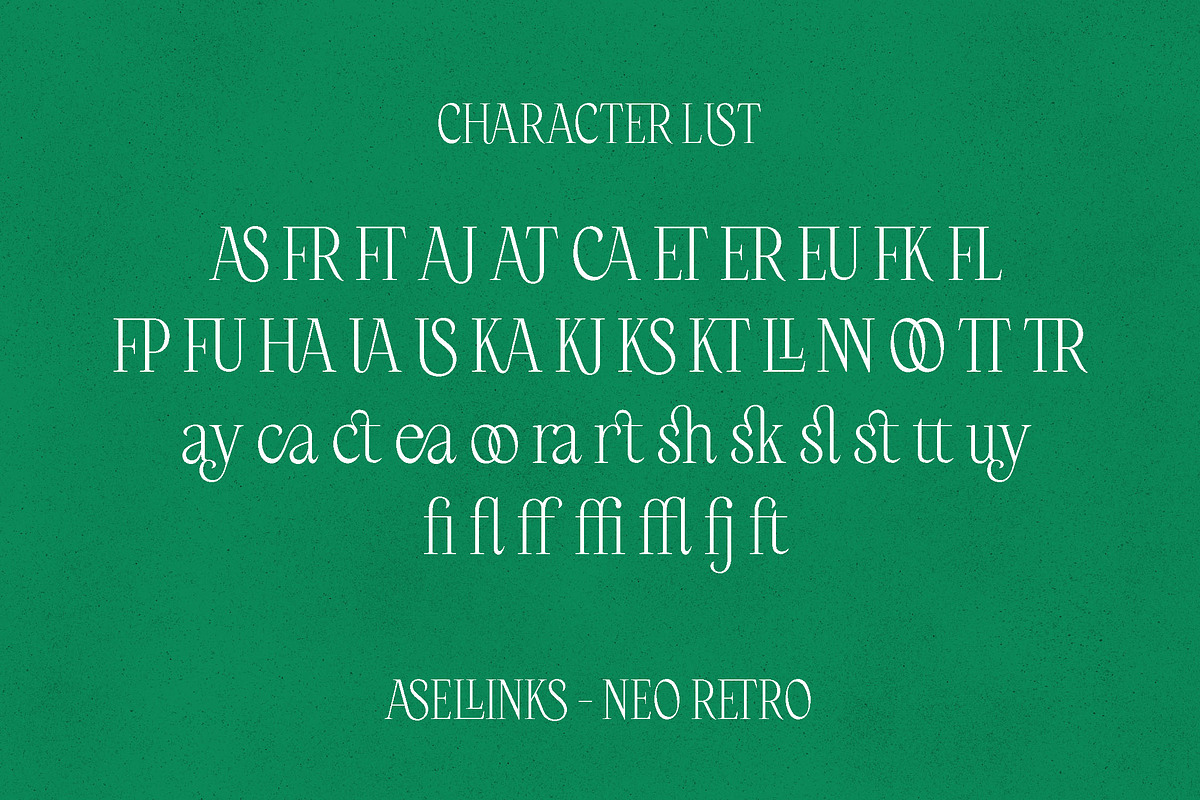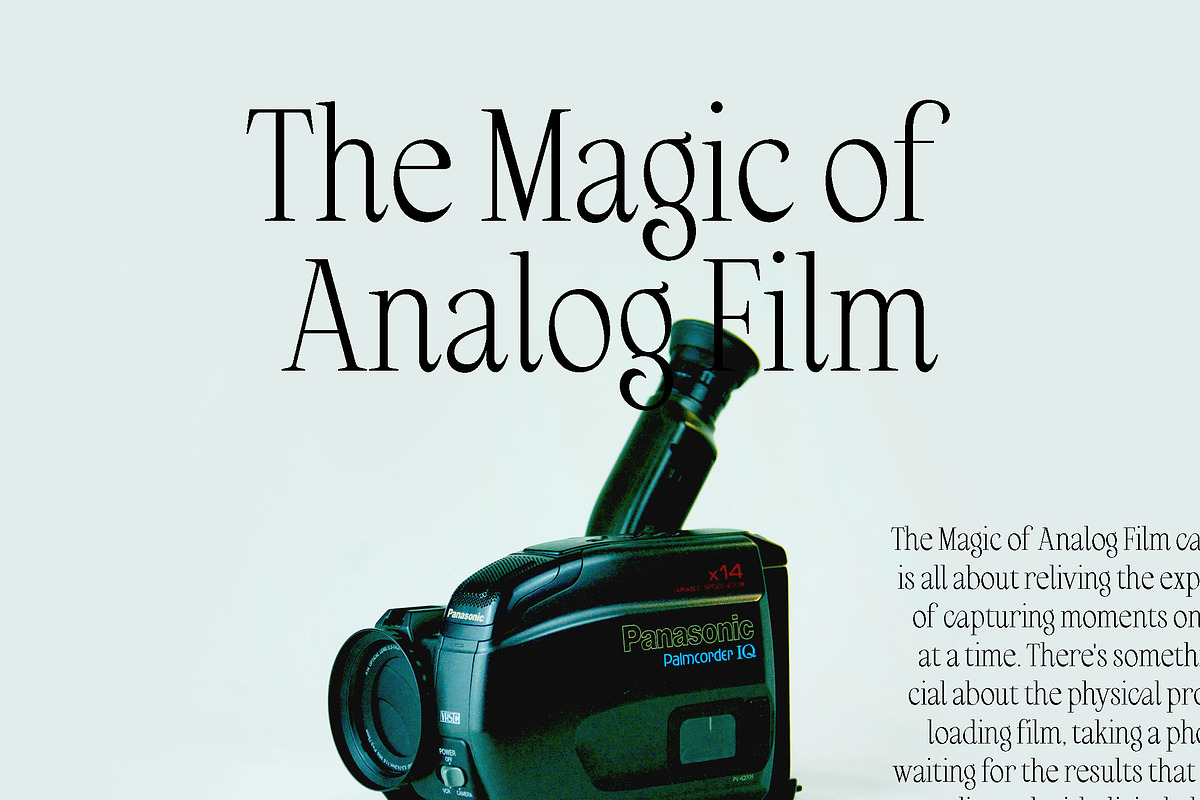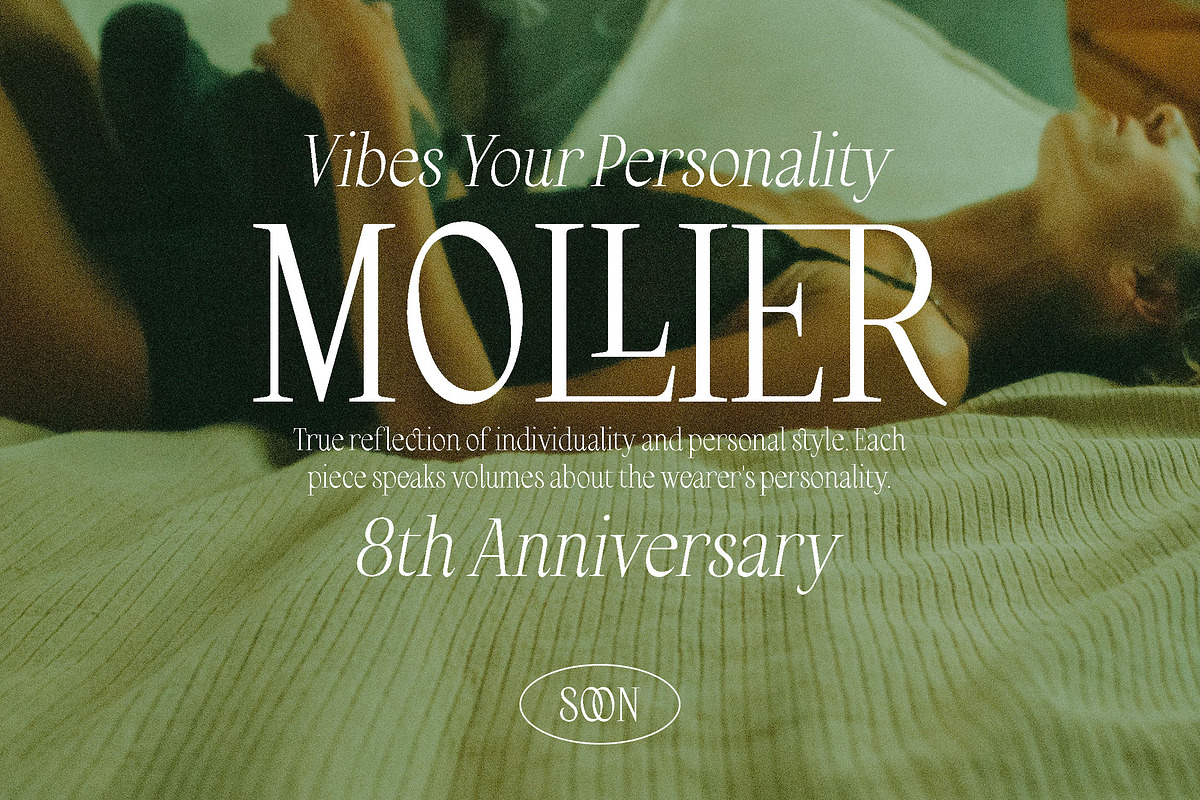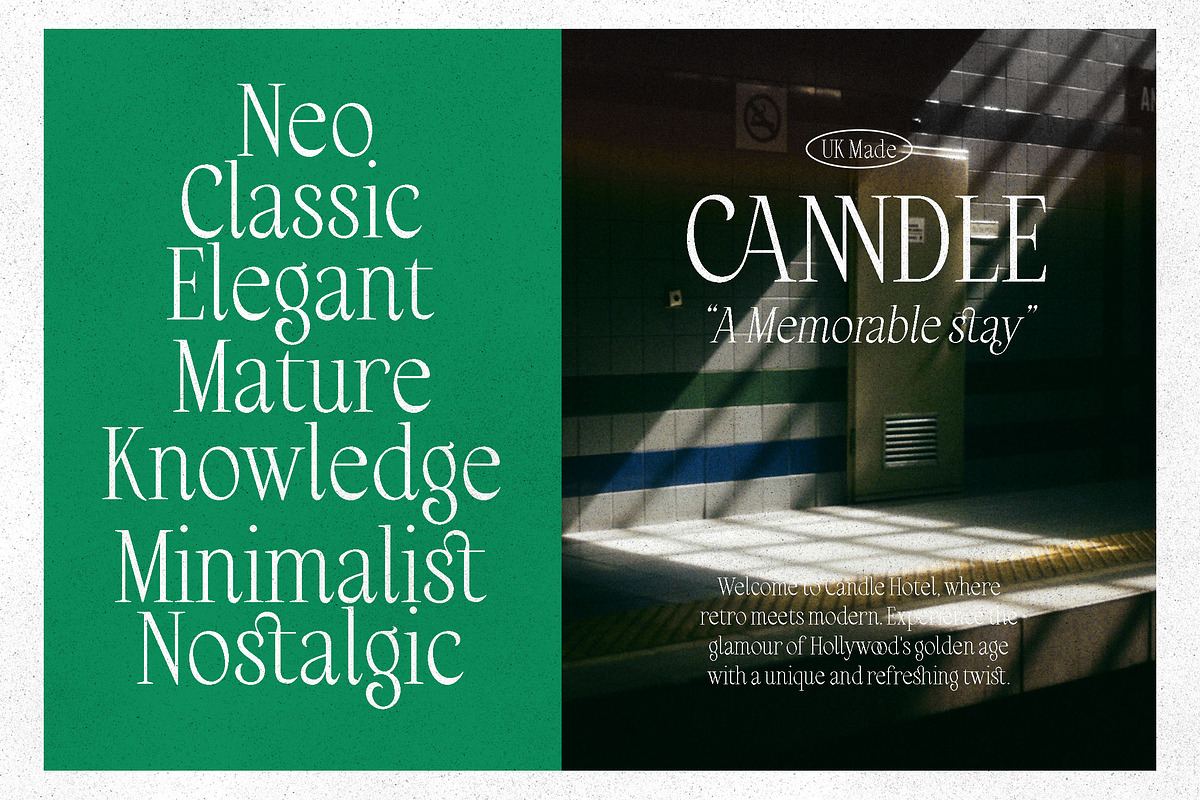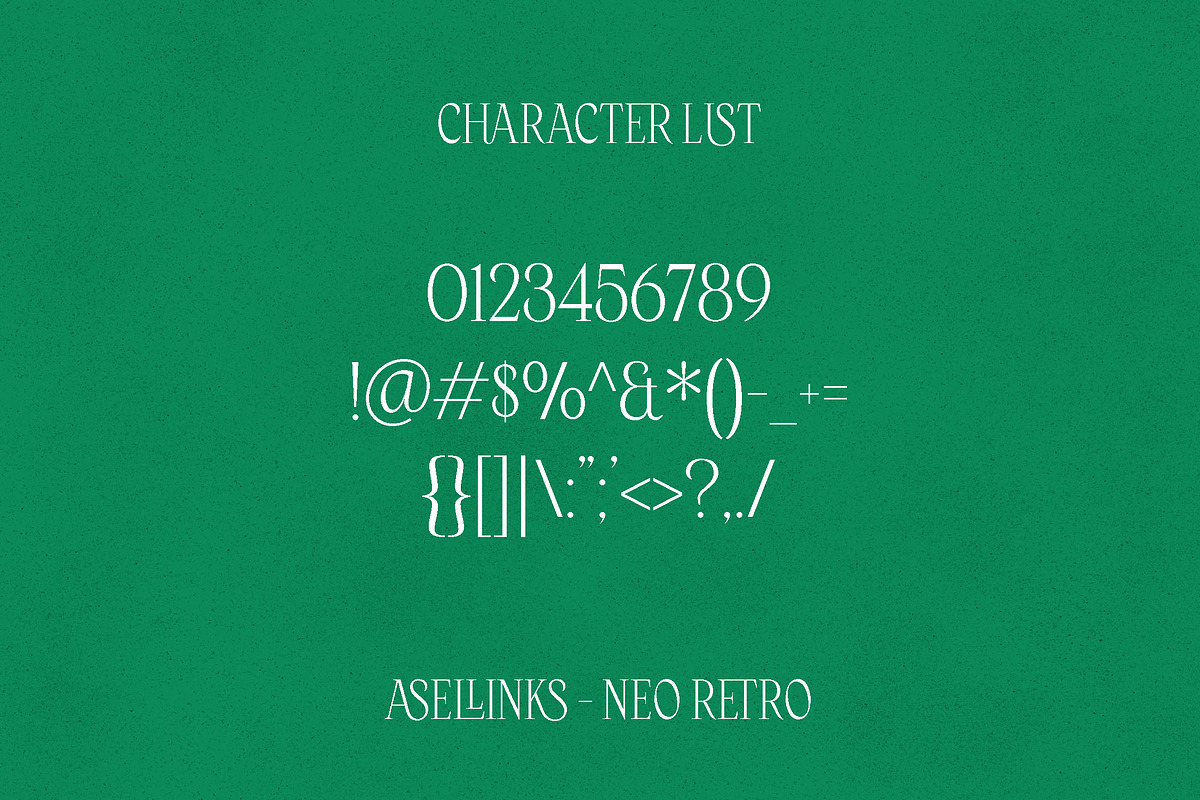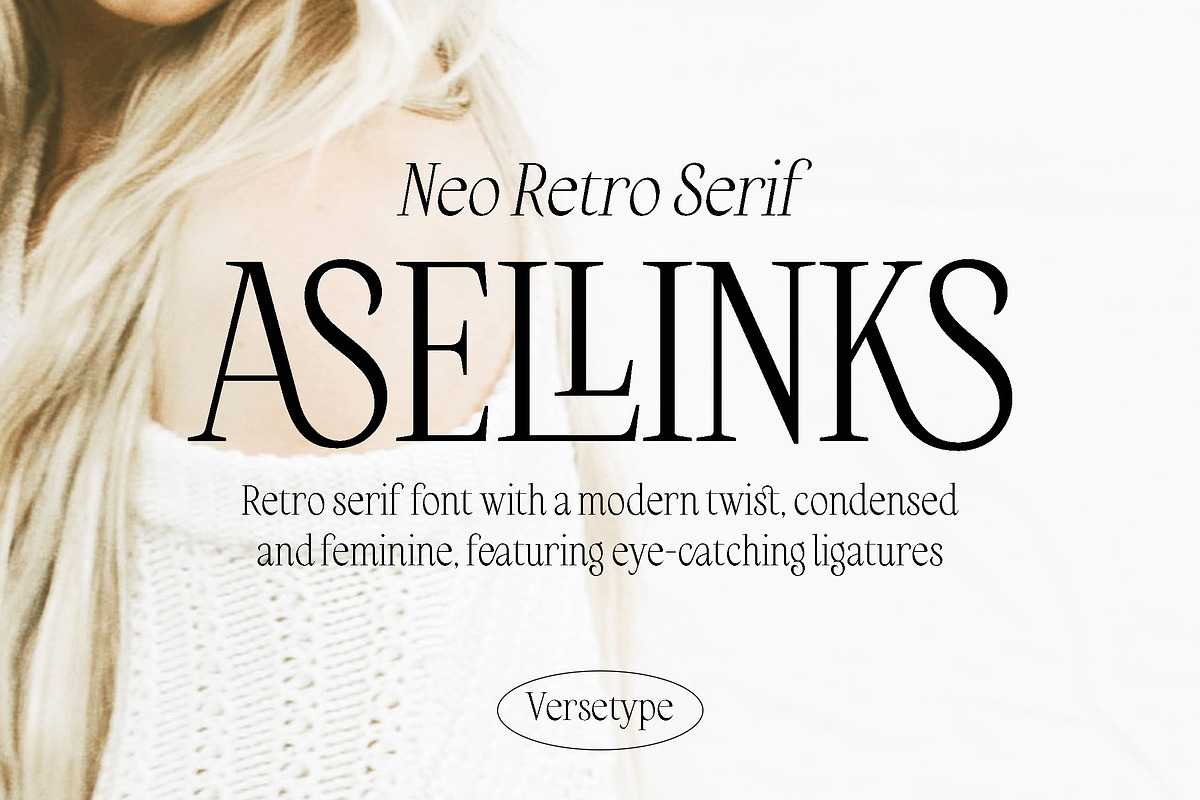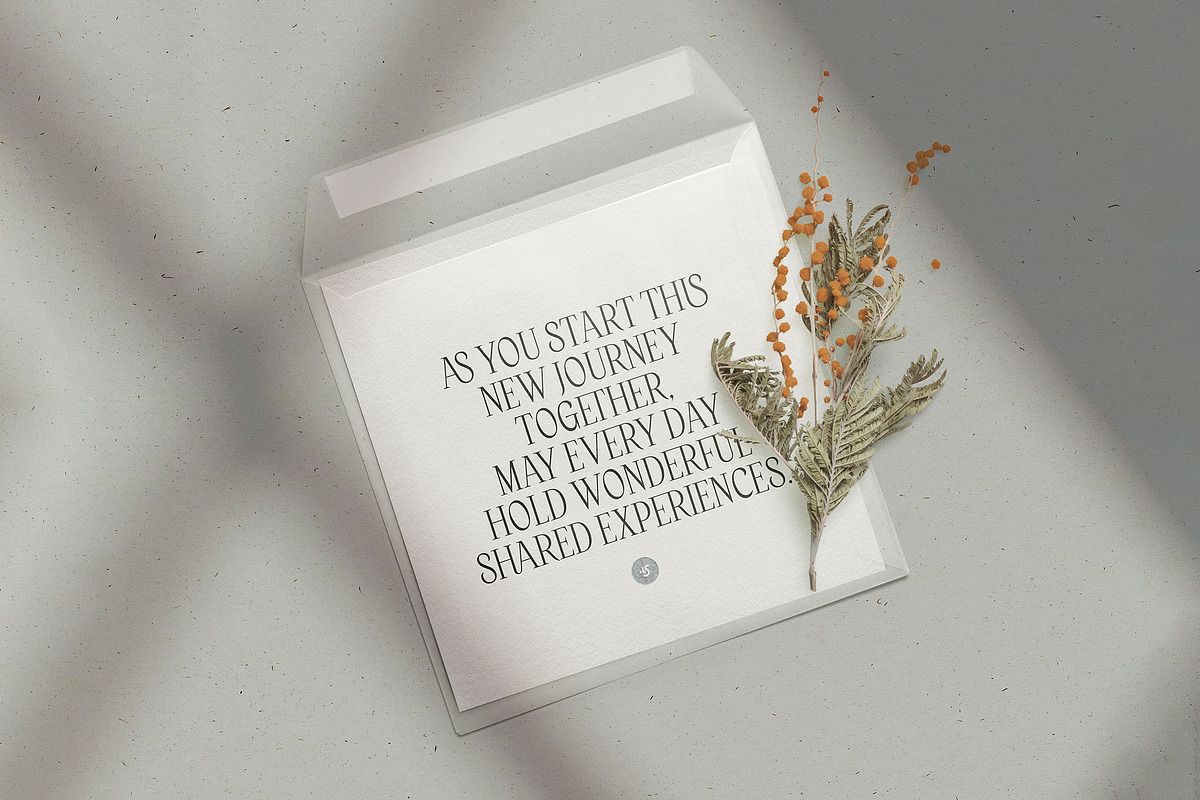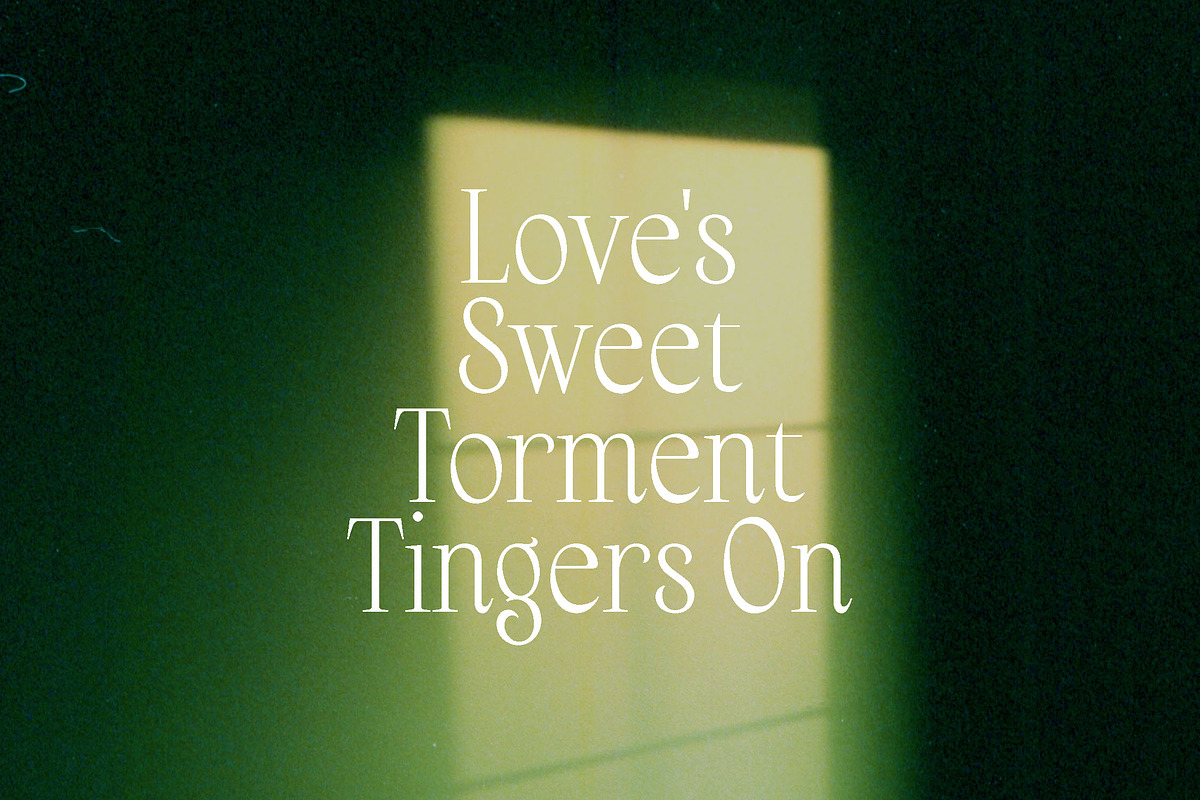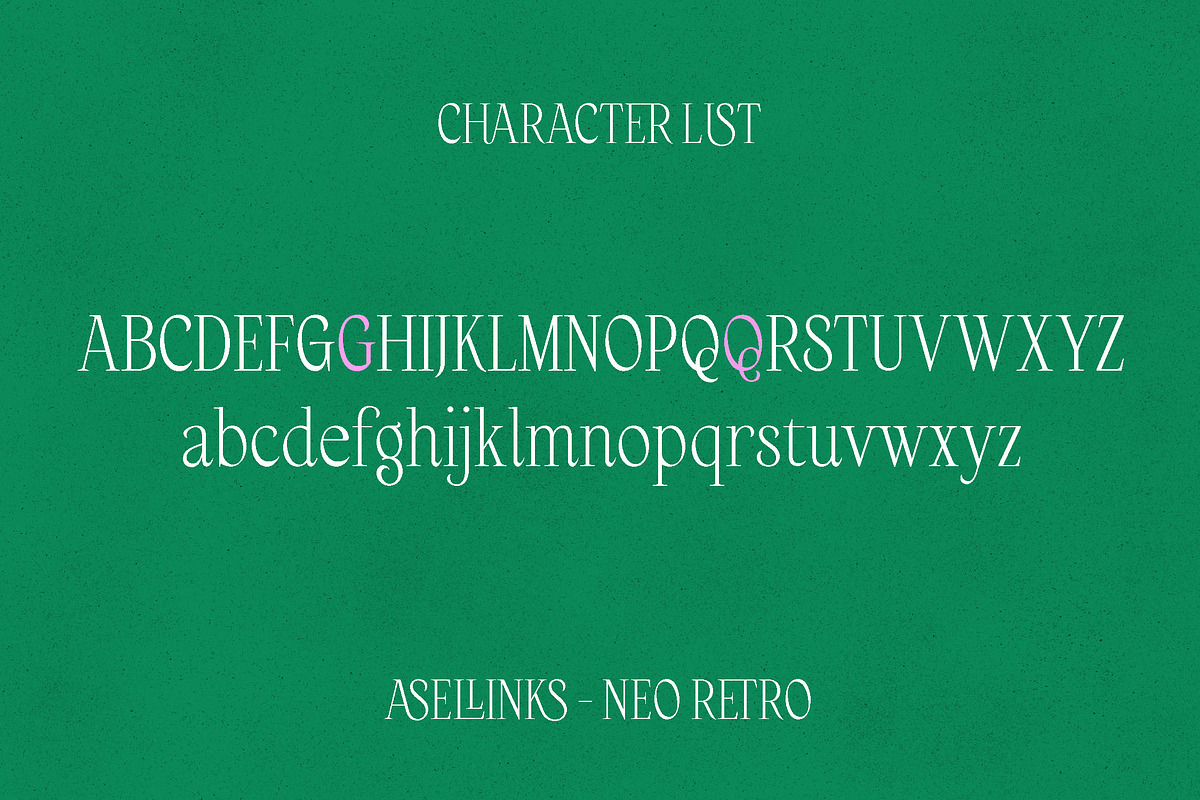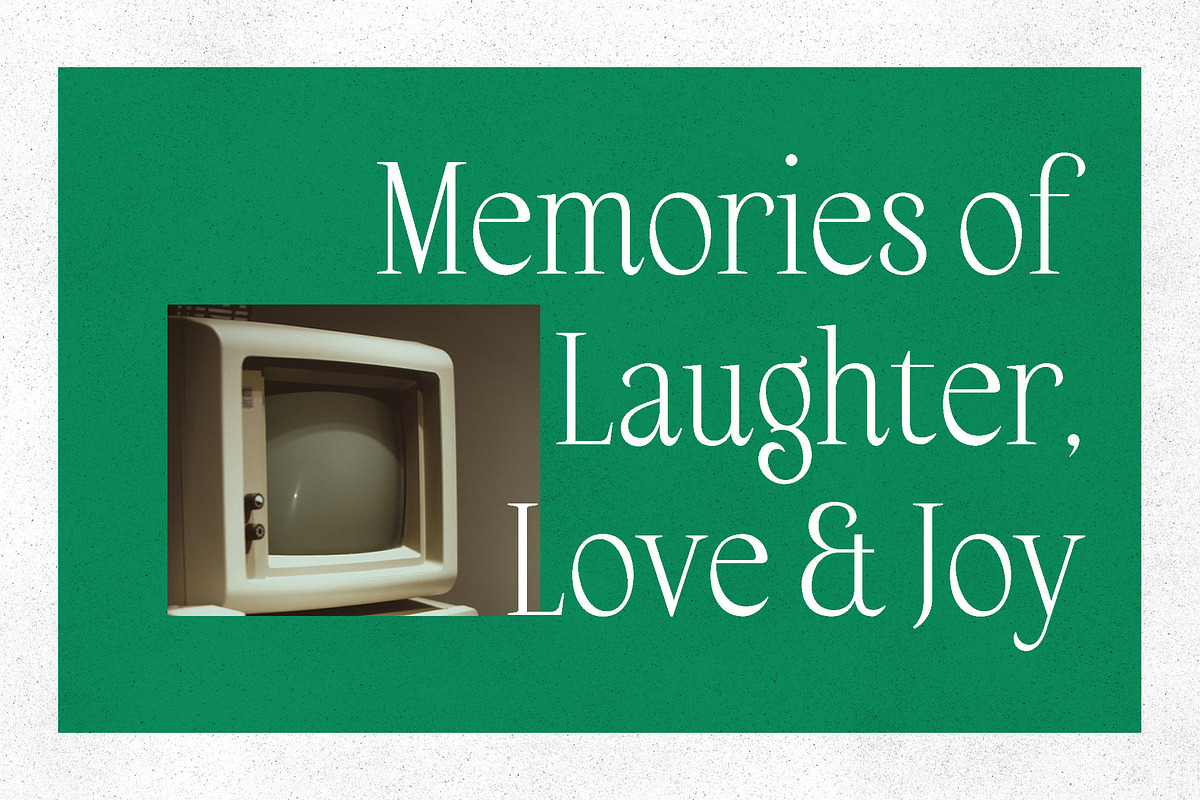
Asel Links - Neo Retro Serif
Introducing Asel Links font - a versatile display font with a touch of elegance. With its unique ligatures, Asel Links adds a distinctive and eye-catching element to any design. This font is designed with a contemporary twist on a classic style, making it perfect for various projects such as branding, headlines, and editorial design. Its extensive multilingual support also makes it easy to use for any language. With Asel Links, your designs will never look the same again.